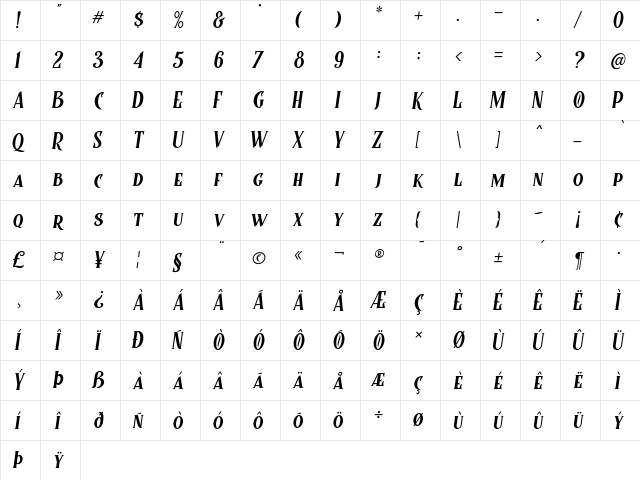
Controwell Italic
Design Context for Controwell Typeface
Controwell is a composed and adaptable typeface that performs quietly and consistently across a wide range of design contexts. The slanted form adds forward momentum and visual energy.
Pro Tip: Try Controwell for annotation and caption copy alongside an upright companion — the contrast in angle creates a dynamic but ordered typographic system.